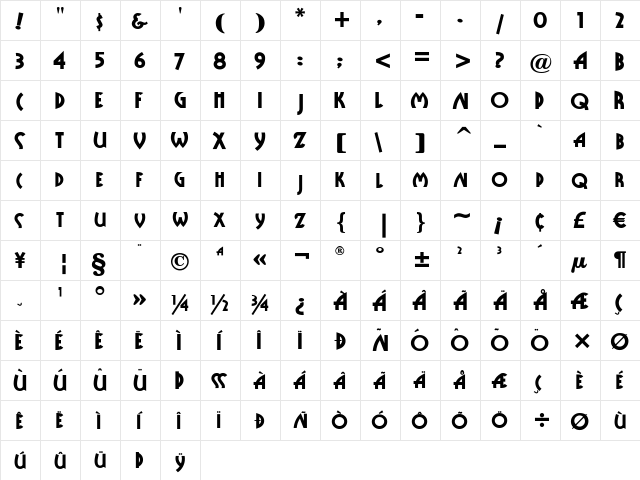
Public-Enemy Regular
Design Context for Public-Enemy Typeface
Public-Enemy is a composed and adaptable typeface that performs quietly and consistently across a wide range of design contexts.